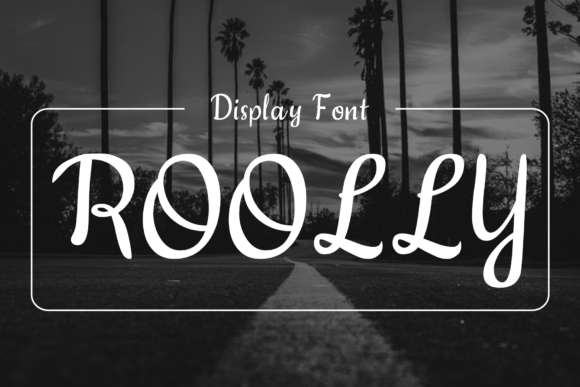
Welcome to the world of Roolly Font, a carefully crafted handwritten typeface that exudes elegance, modernity, and a touch of playful charm. Designed by the talented Roman Caseru, Roolly is not just a font; it's an artistic expression waiting to be unleashed onto your creative projects.
Roolly's meticulously crafted characters dance across the page with a graceful flow, reminiscent of a skilled calligrapher's penmanship. Its clean lines and elegant curves give it a timeless appeal, while its modern twist adds a touch of contemporary sophistication. Roolly is a versatile font, capable of transforming any design into a visual masterpiece.
With Roolly, you can create captivating logos that command attention, headlines that demand to be read, quotes that resonate with your audience, and packaging that leaves a lasting impression. Its versatility extends to branding, where Roolly can infuse your brand identity with a touch of sophistication and uniqueness.
Roolly is not just a font; it's an invitation to unleash your creativity. Whether you're a designer, a marketer, or simply someone with a passion for beautiful typography, Roolly is the perfect companion for your creative journey. Experience the Roolly difference today and let your designs speak volumes.
**Key Features:**
* Clean, elegant, and modern handwritten typeface
* Perfect for packaging, branding, logos, headlines, quotes, and printed matter
* Versatile and adaptable to a wide range of design projects
* Crafted by the talented Roman Caseru